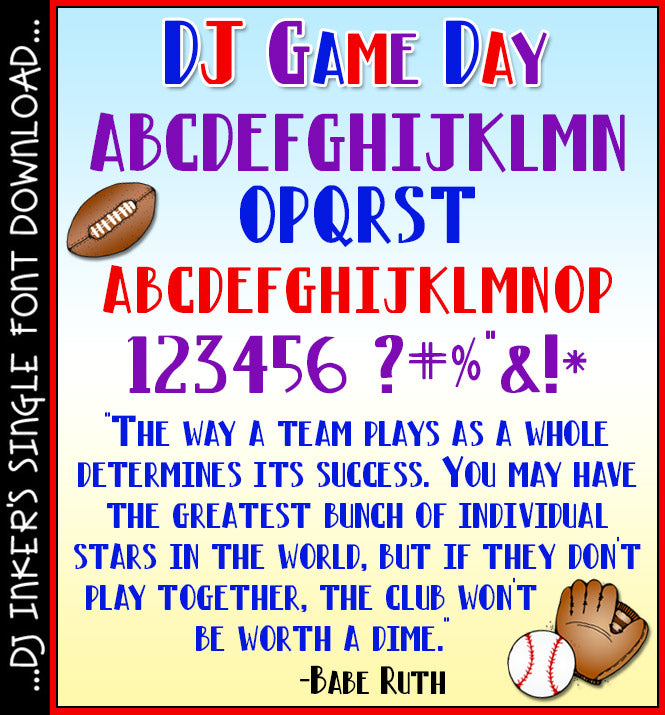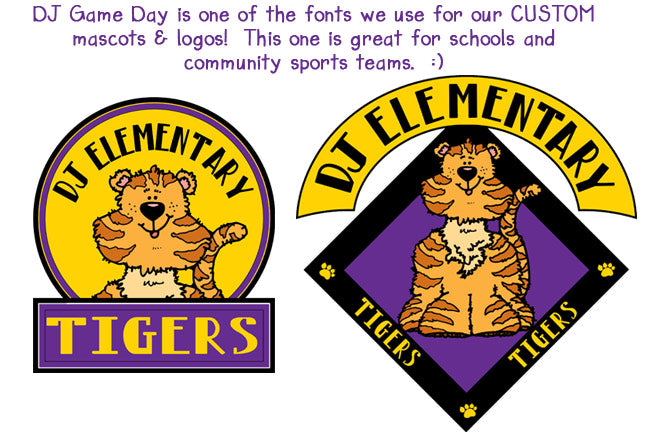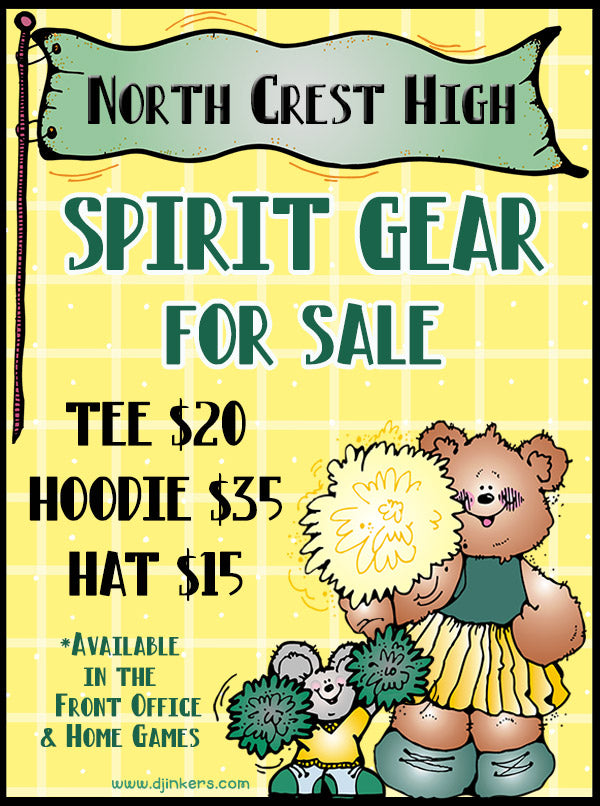
DJ Game Day Font Download
Let's hear it for DJ Game Day! This bold, sporty font
is great for practice reminders, game posters, score boards, game night
headlines and creating a little team spirit. Download today and SCORE a smile!